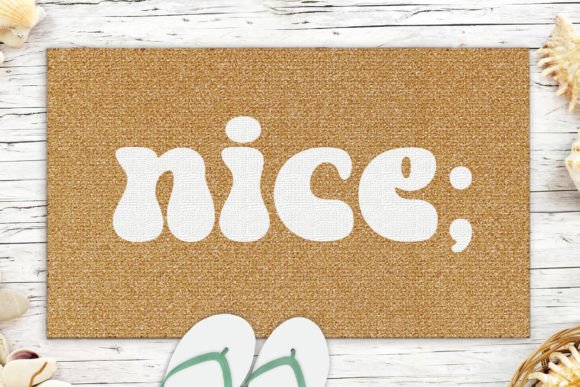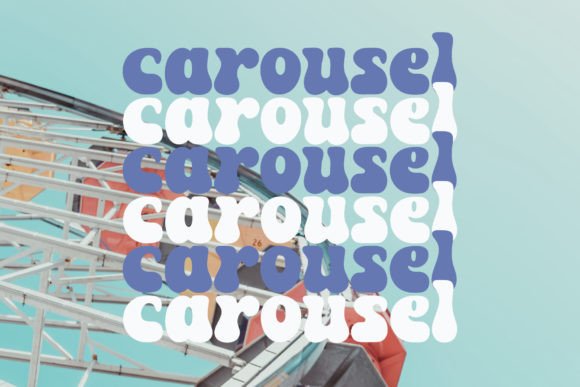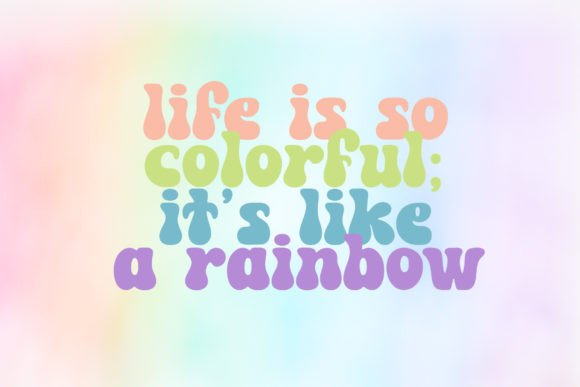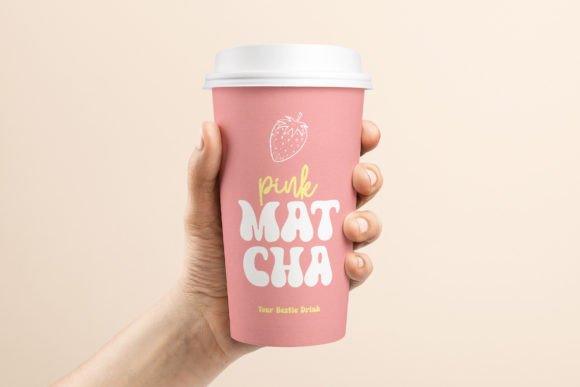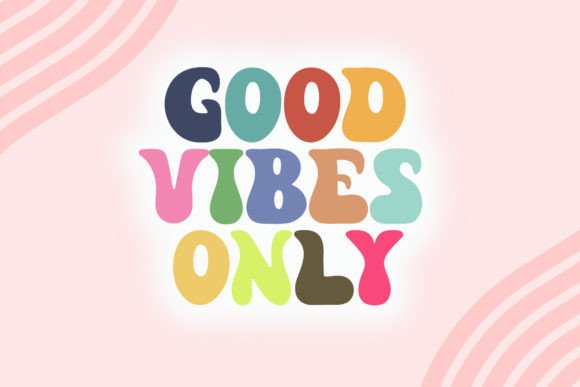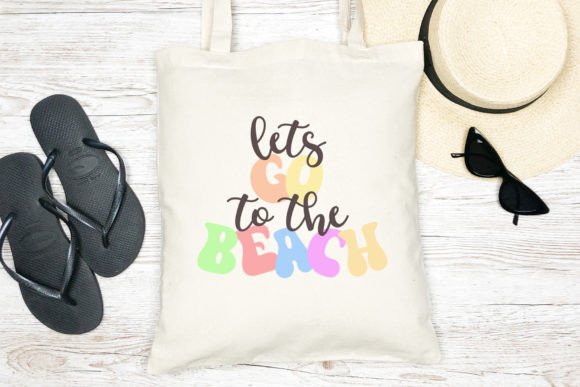
Introduction to Hipster Font
Hipster is a cute, fun, and playful retro display font.
It has vintage look with its cuteness inside This font is perfect for any project, especially with vintage styles, such as logos, crafting, wedding invitations, branding, stickers, sublimation, quotes, and many more.